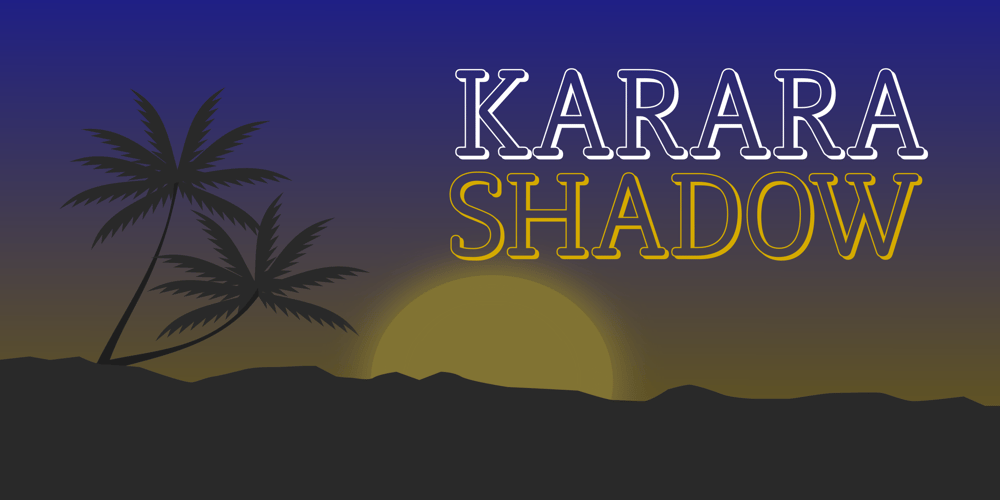
Karara Shadow
Karara Shadow font
Karara Shadow Font Family was designed by Ahsan Ahmedzai and published by Kufic Studio. Karara Shadow contains 2 styles and family package options. Karara Shadow, a complete font set and additional font style of Karara. The word Karara means patience & steady.The style is achieved by practicing and studying the modern techniques to deliver high-end professional font.This specific font had a tint of wall chalking & texture.Carefully engraved and stenciled to delivery clean cuts and design.